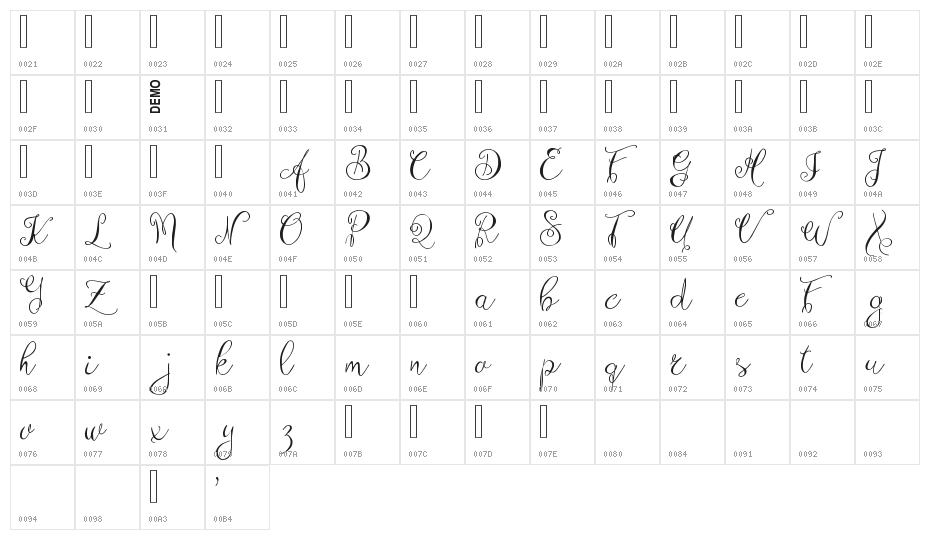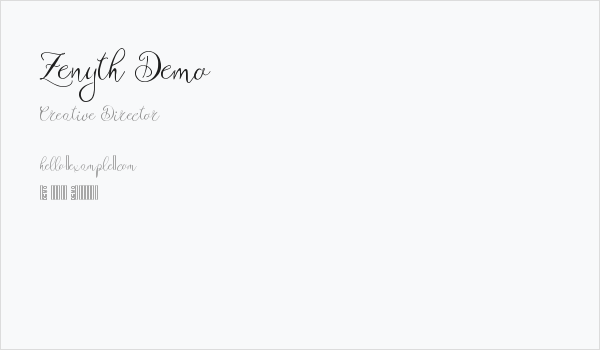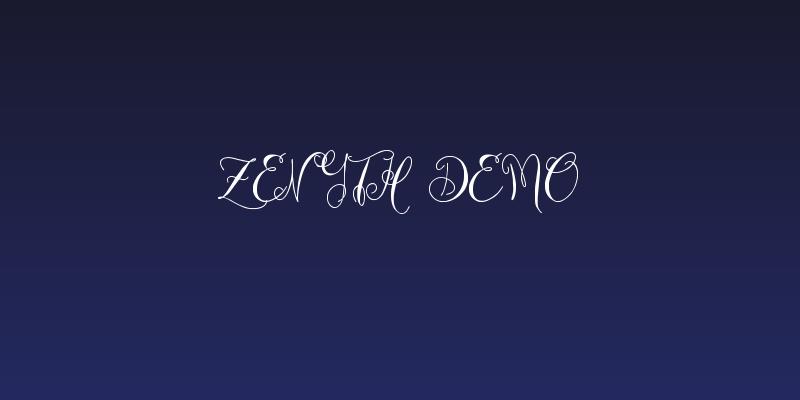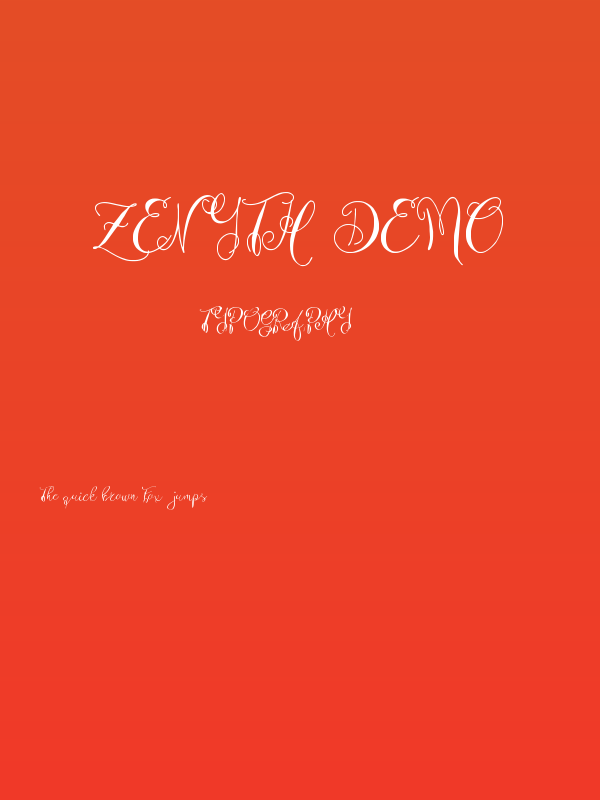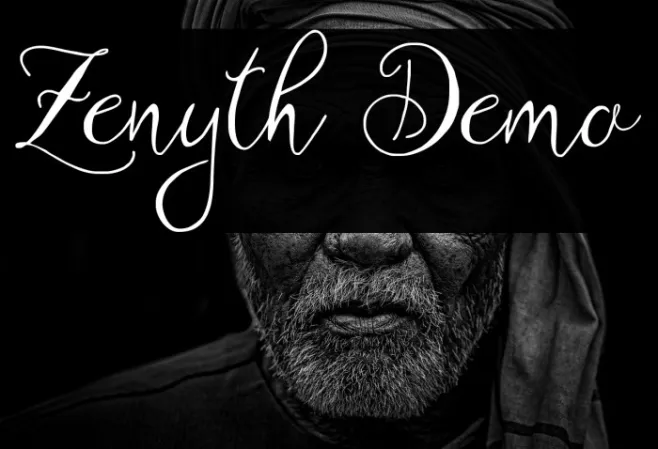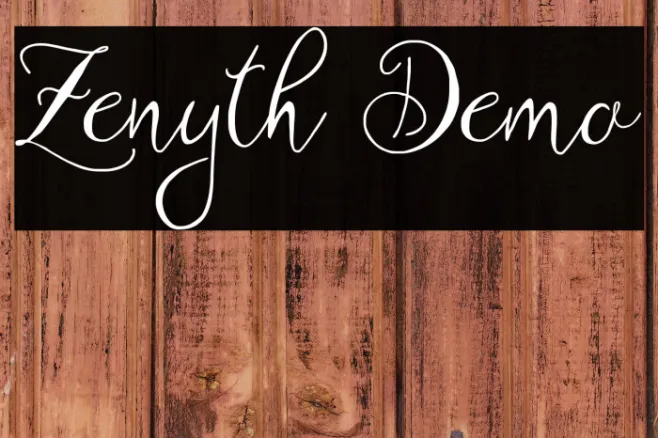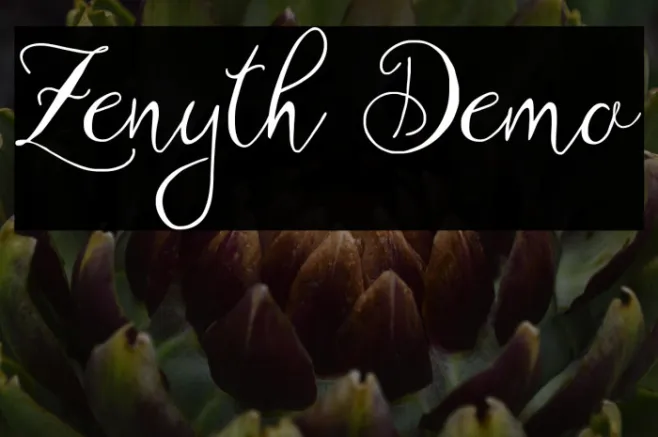
Zenyth Demo Font
Zenyth Demo Description
This elegant script font features a flowing, cursive style with intricate loops and swashes, giving it a sophisticated and artistic appearance. The uppercase letters are particularly ornate, with exaggerated flourishes that add a touch of drama and flair. The lowercase letters maintain a consistent flow, complementing the uppercase with their smooth, connected strokes. The font's overall design is both graceful and dynamic, making it suitable for projects that require a touch of elegance and creativity. The characters are well-spaced, ensuring readability while maintaining the decorative nature of the script. This font is ideal for use in invitations, branding, and other creative projects where a stylish and refined look is desired.
| Proposed Projects | Ideal for wedding invitations, branding, greeting cards, and artistic projects. |